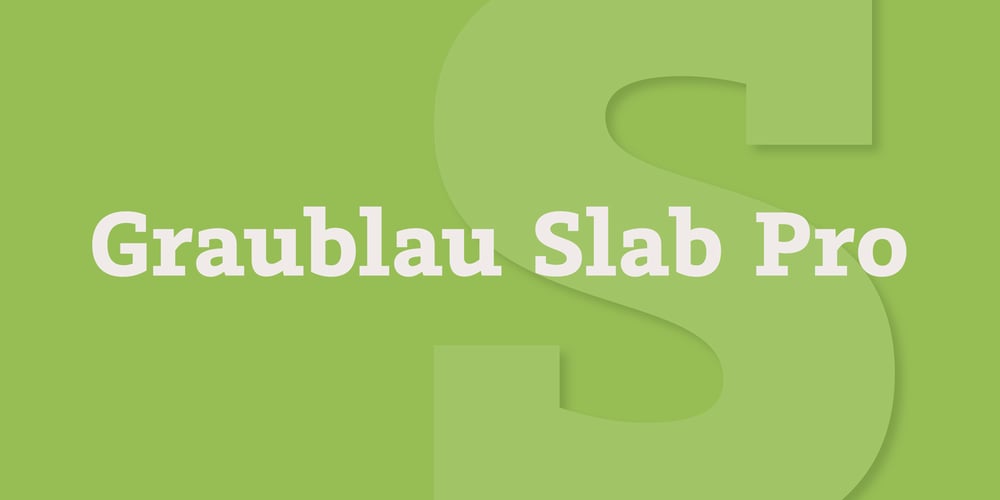
Graublau Slab Pro Font Family was designed by Georg Seifert and published by FDI. Graublau Slab Pro contains 14 styles and family package options. Graublau Slab is the latest addition to the popular Graublau type family designed by the Berlin-based type designer Georg Seifert. Since its release in 2008, the Graublau Sans Pro typeface has been a popular choice for corporate designs, books, magazines, websites and much more. With Graublau Slab Pro, the type family becomes even more versatile. With its contemporary and expressive design, it’s perfect for editorial design, web headlines or any other text use, that should really draw the reader’s attention. And since Graublau Slab Pro comes in the exact same 7 weights as Graublau Sans Pro, both typefaces work together perfectly.